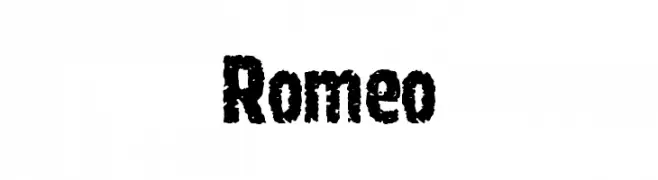
A bold, distressed font with a rugged, textured appearance.
A bold, jagged font with an earthquake-inspired design.
A distressed, industrial font with a vintage, weathered look.
A decorative, distressed font with jagged edges and an organic, hand-drawn style.